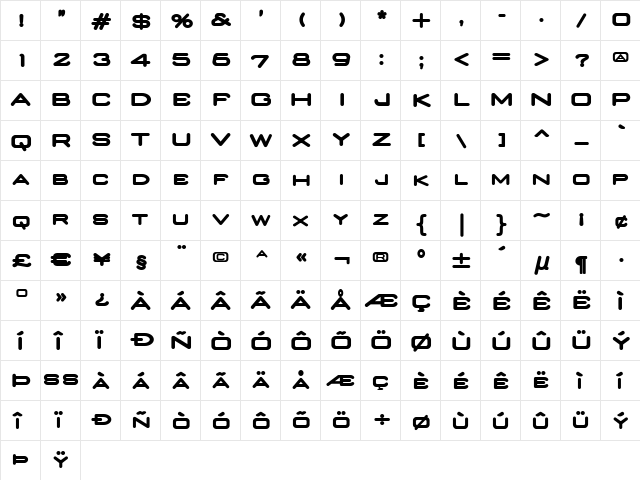
Nedian Bold
Design Context for Nedian Typeface
Nedian is a composed and adaptable typeface that performs quietly and consistently across a wide range of design contexts. Its bold stroke weight gives it real presence on the page.